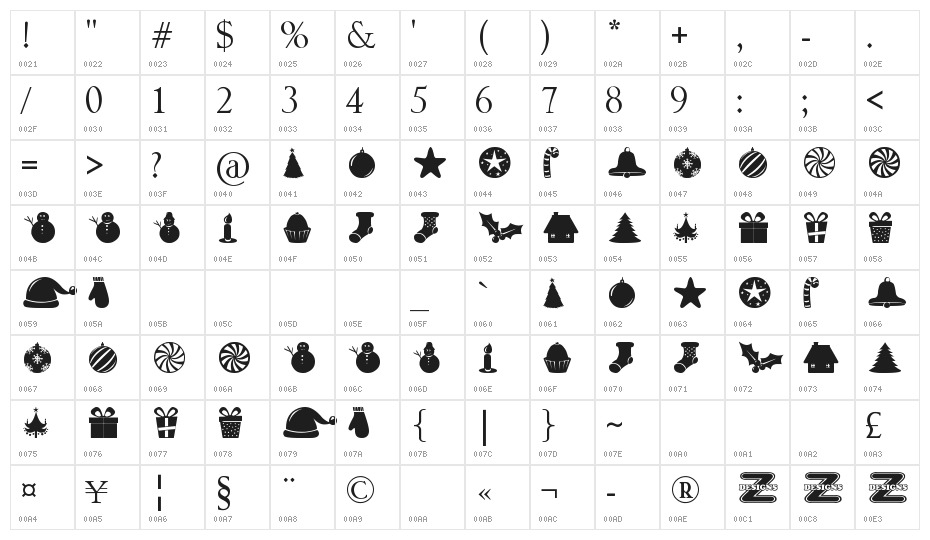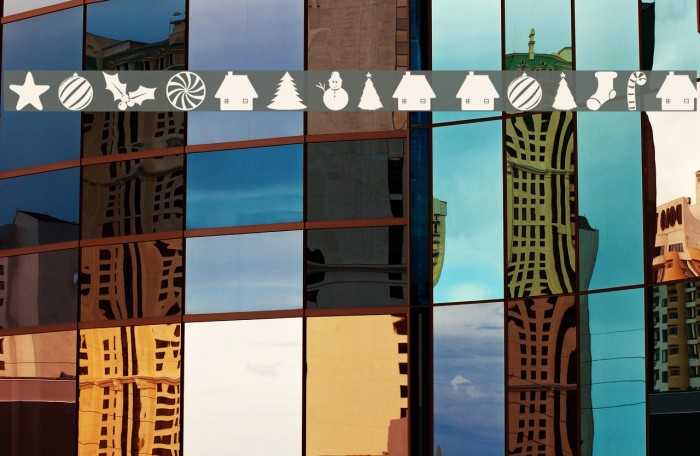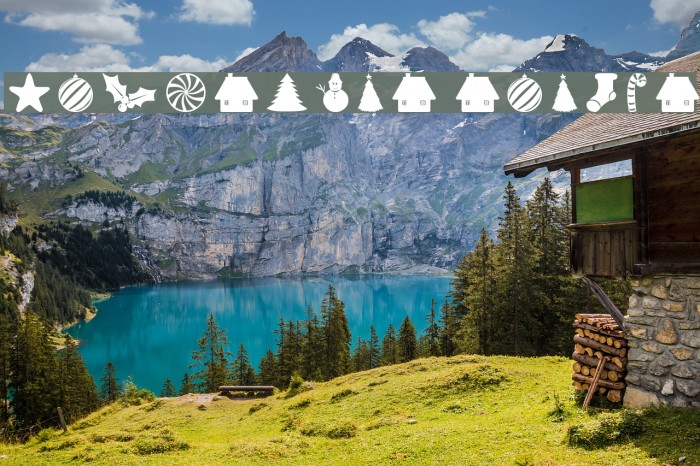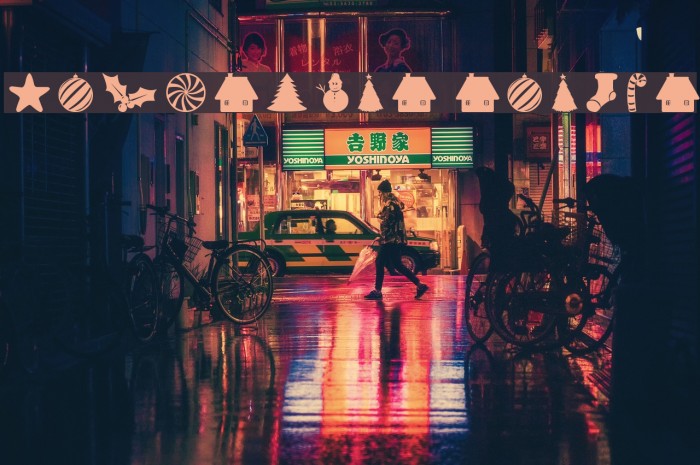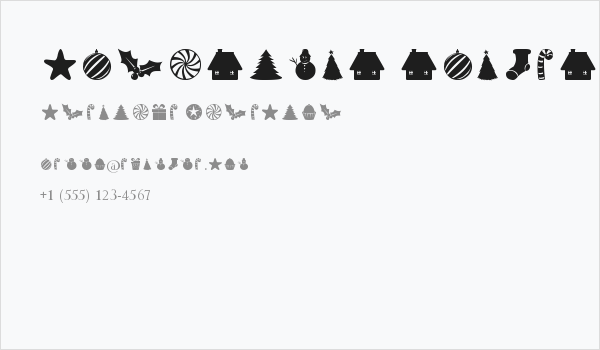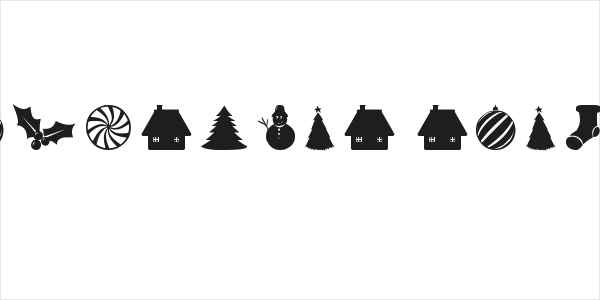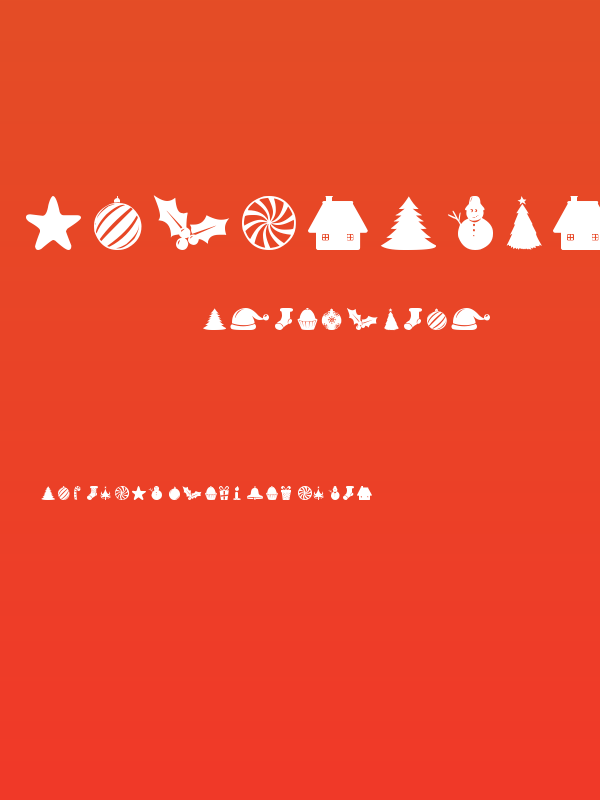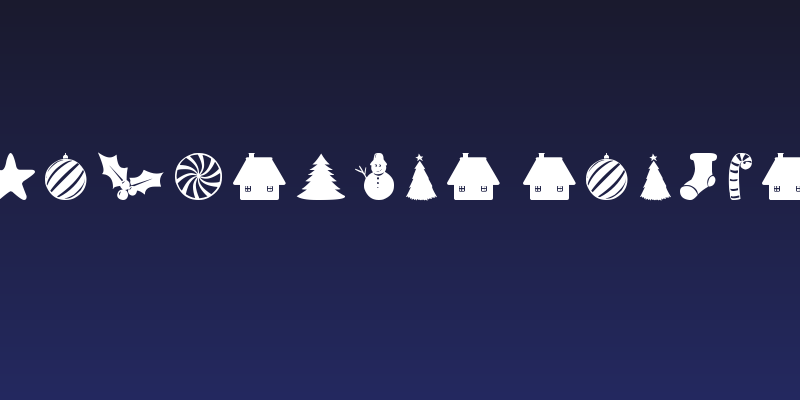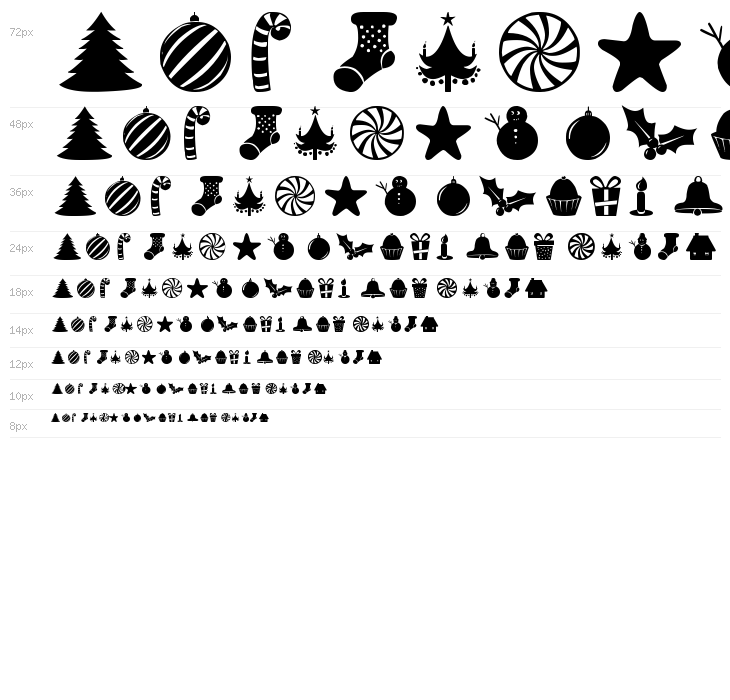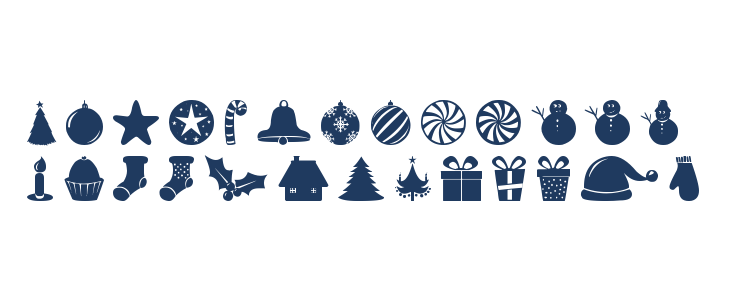
Christmas Shapes Font
Christmas Shapes Description
This collection features a delightful array of Christmas-themed shapes and symbols, perfect for adding a festive touch to any project. The designs include classic holiday icons such as Christmas trees, ornaments, stars, candy canes, bells, snowflakes, and snowmen. Each shape is rendered in a bold, silhouette style, making them highly versatile for various design applications. The simplicity of the shapes ensures they are easily recognizable and can be used effectively in both digital and print media. These shapes are ideal for creating holiday cards, festive decorations, gift tags, and more. Their playful and cheerful style captures the essence of the holiday season, making them a great choice for any Christmas-themed project.
| Use Case | Logos, Headlines, Decorative elements |
| Proposed Projects | Holiday cards, festive decorations, gift tags, digital graphics, print media. |